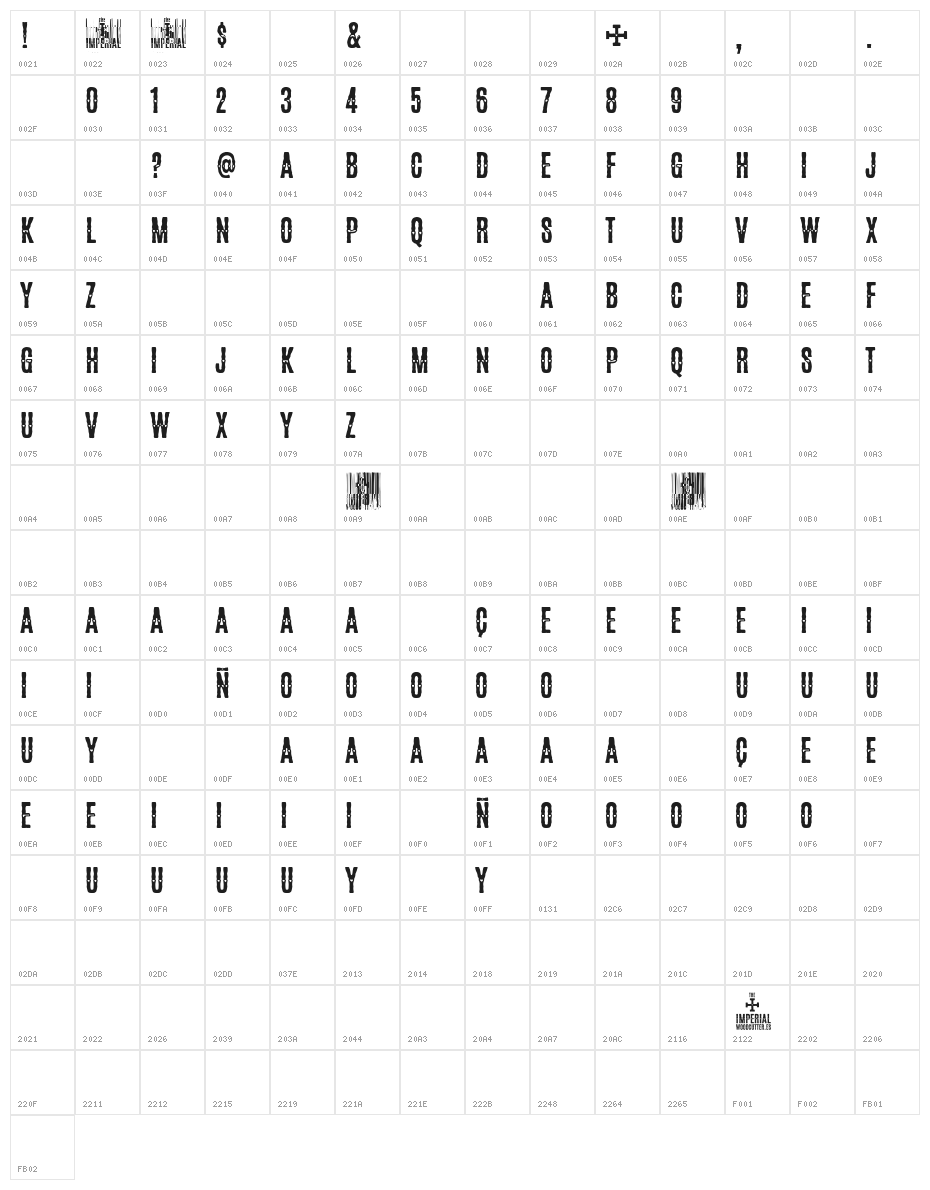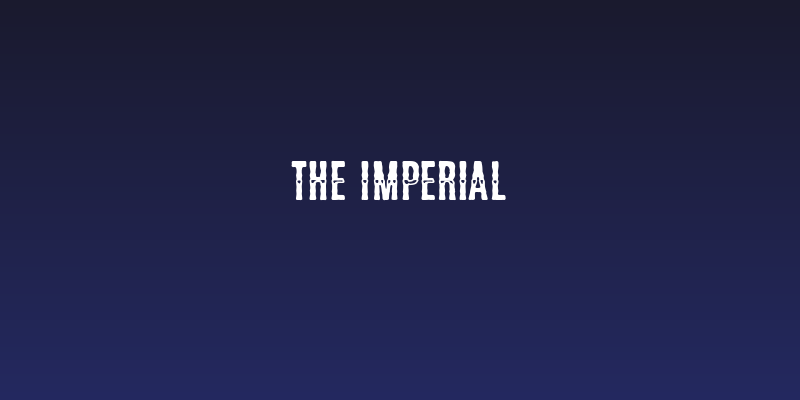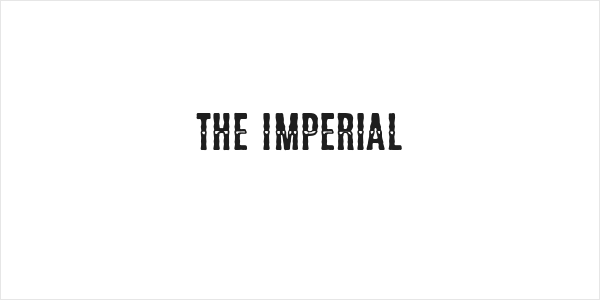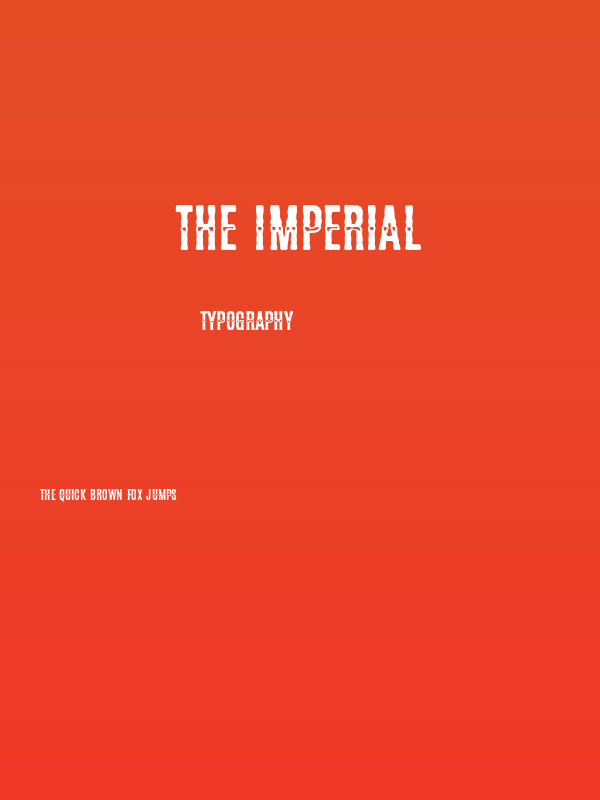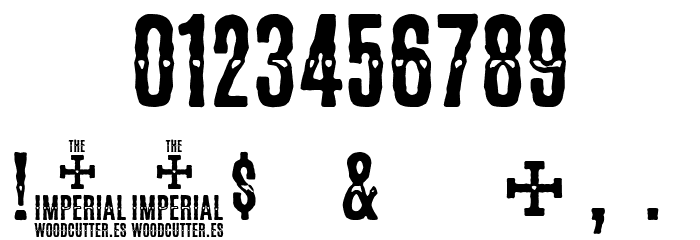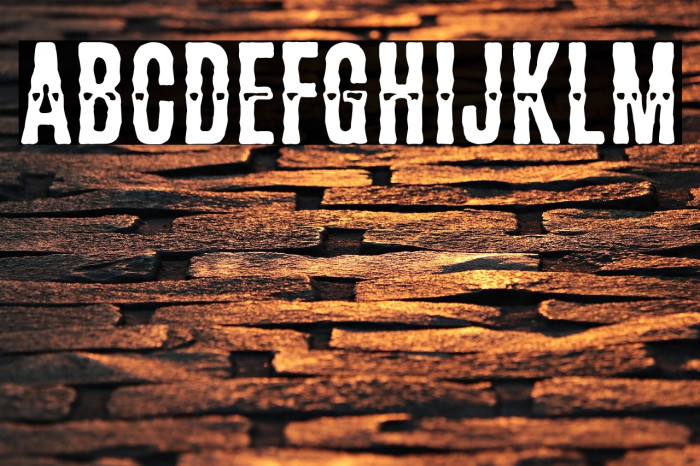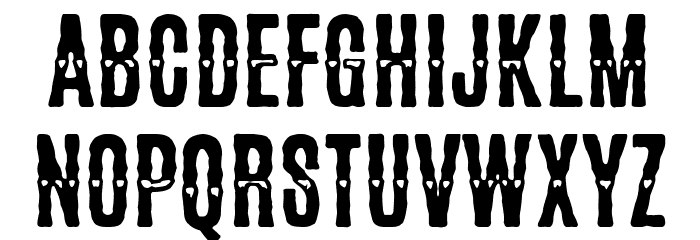
The Imperial Font
The Imperial Description
This font features a bold and rugged design with a distressed appearance, giving it a vintage and industrial feel. The characters are thick and heavy, with irregular edges and a worn texture that suggests a sense of history and strength. The uppercase and lowercase letters maintain a consistent style, while the numbers and special characters complement the overall aesthetic. This font's unique design makes it stand out, ideal for projects that require a bold statement or a touch of nostalgia.
| Proposed Projects | Ideal for posters, logos, branding, and any design that requires a strong, vintage aesthetic. |